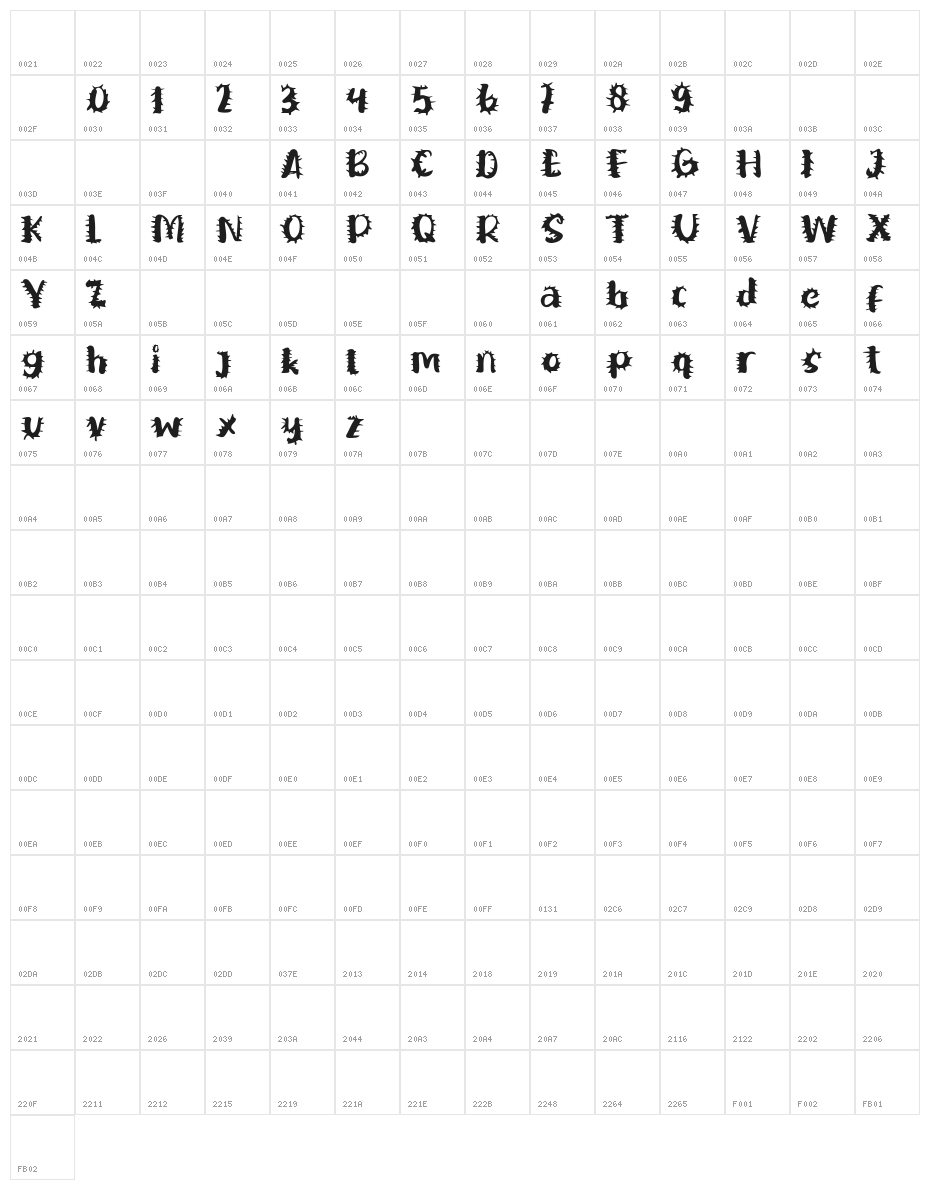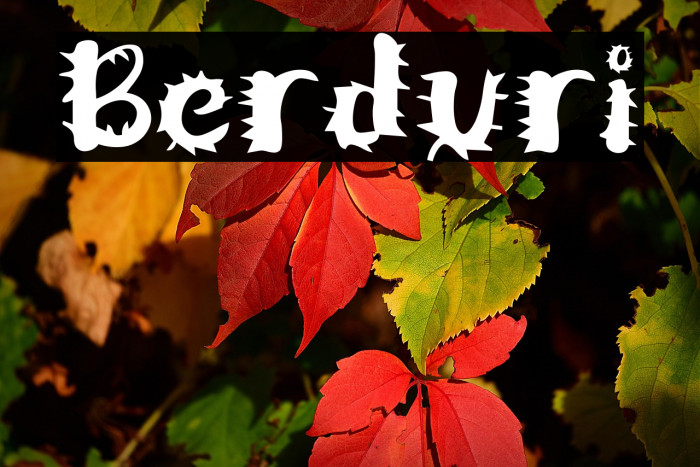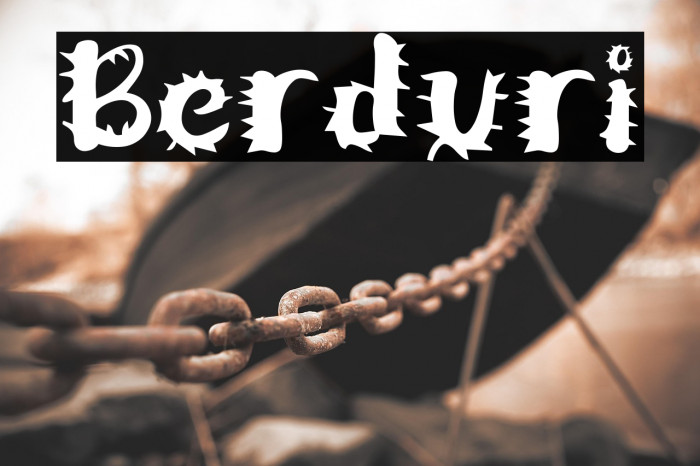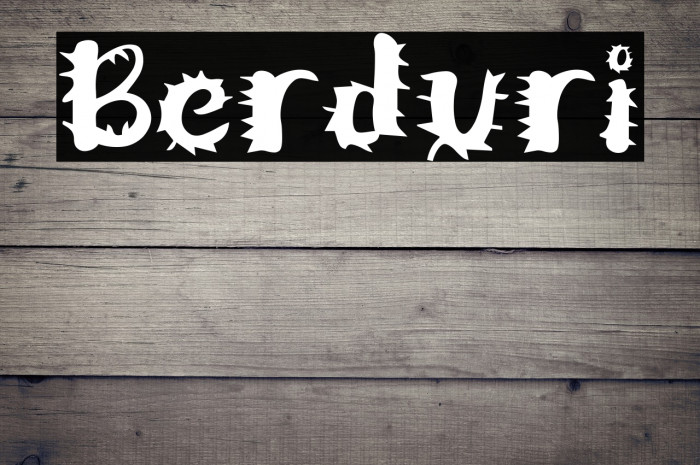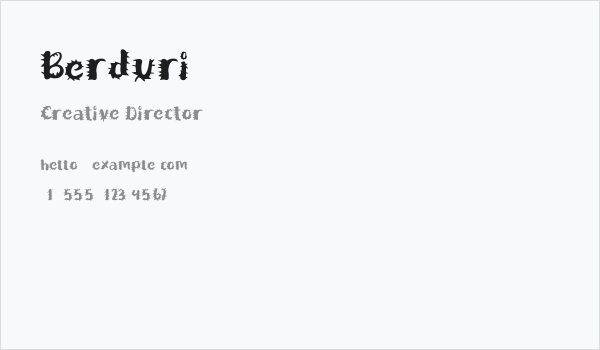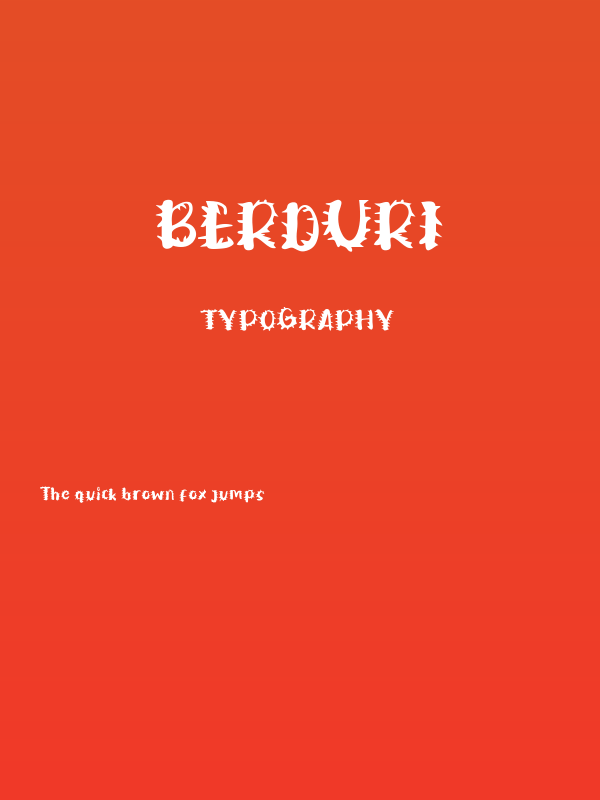
Berduri Font
Berduri Description
This font features a bold and dramatic style with thorn-like embellishments protruding from each character, creating a striking and edgy appearance. The uppercase and lowercase letters maintain a consistent design, with sharp, jagged edges that give the font a unique and aggressive look. The numbers follow the same aesthetic, ensuring a cohesive appearance across all characters. The font's distinctive style makes it ideal for projects that require a bold statement or a touch of gothic flair.
| Proposed Projects | Perfect for horror-themed posters, edgy branding, album covers, or any project needing a bold, dramatic impact. |